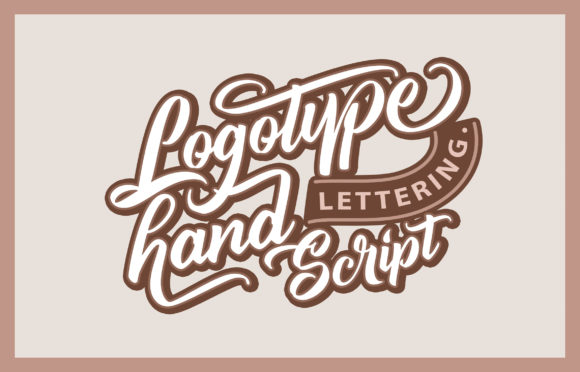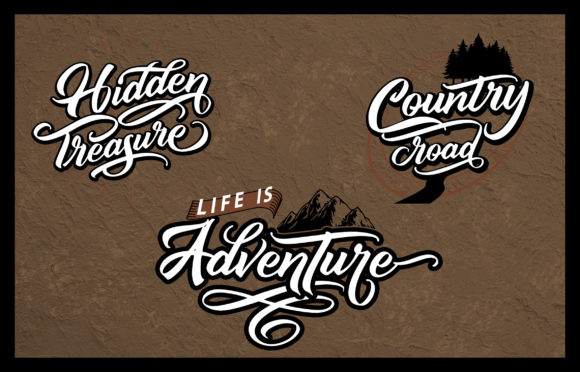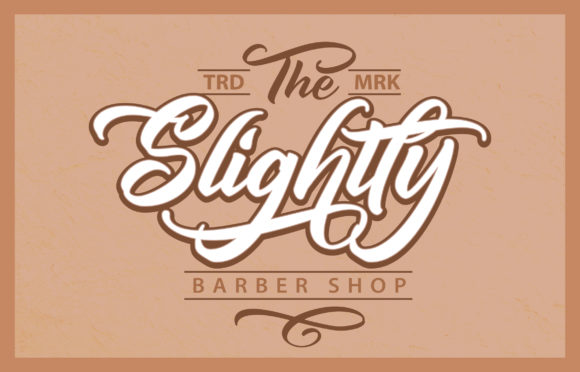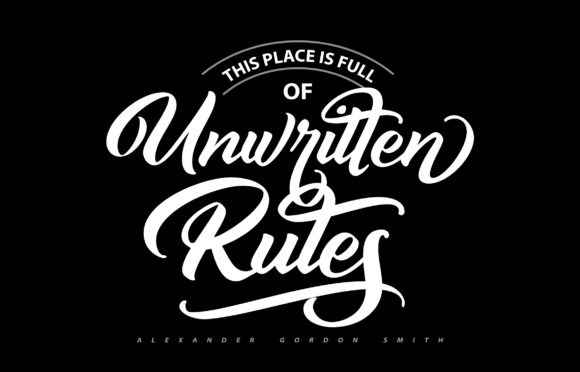
Sunniland Font
About Sunniland Font
Sunniland is a sweet, flowing and unique handwritten font. It is PUA encoded which means you can access all of the glyphs and swashes with ease! It features a varying baseline, smooth lines, gorgeous glyphs and stunning alternates.